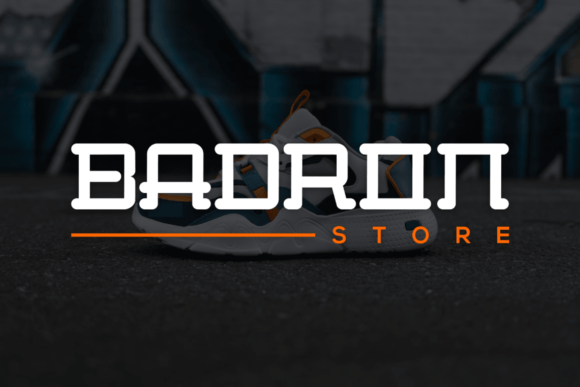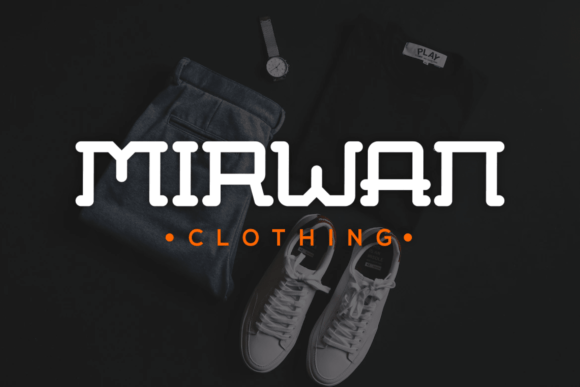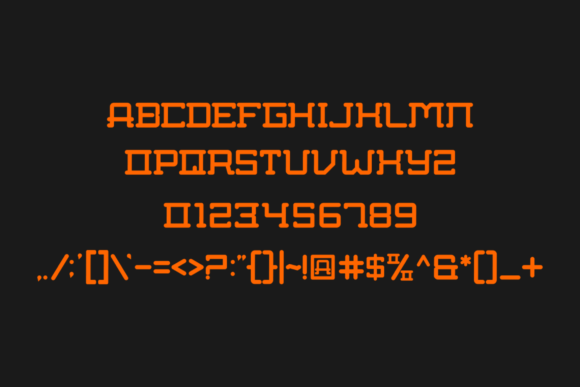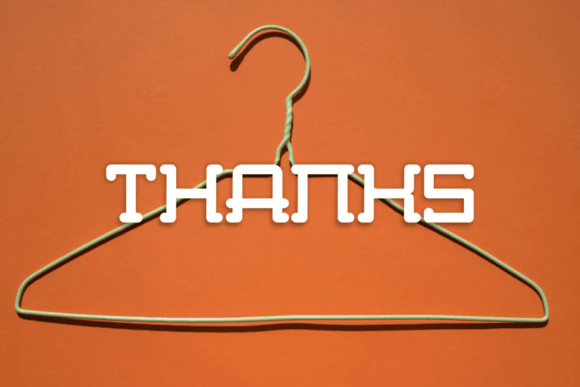
Dampar Font: Elevate Your Designs with a Cool and Modern Display Font
Are you tired of using the same old fonts in your designs? Look no further than Dampar Font, a cool and modern display font that’s sure to take your creative projects to the next level. Masterfully designed to become a true favorite among designers and crafters, Dampar Font has the potential to bring each of your creative ideas to the highest level.
What Makes Dampar Font So Special?
Dampar Font is a stunning display font that’s perfect for a wide range of design projects, from branding and advertising to packaging and digital media. Its unique and modern design makes it stand out from the crowd, while its clean and elegant lines ensure that it remains highly legible, even at large sizes.
One of the key features that sets Dampar Font apart is its versatility. Whether you’re looking to create a bold and eye-catching headline or a more subtle and sophisticated text element, Dampar Font has the flexibility to adapt to any design style or aesthetic.
The Design Process Behind Dampar Font
Dampar Font was designed with the goal of creating a font that would be both visually striking and highly functional. The design process involved a careful consideration of typographic principles, as well as a deep understanding of the needs of modern designers and crafters.
The result is a font that’s not only beautiful, but also highly practical. With its wide range of applications and ease of use, Dampar Font is the perfect choice for designers and crafters who want to take their projects to the next level.
Key Features of Dampar Font
So, what are the key features that make Dampar Font so special? Here are just a few of the highlights:
- Cool and modern design: Dampar Font has a unique and stylish design that’s perfect for creating eye-catching headlines and text elements.
- Highly legible: Despite its bold and modern design, Dampar Font remains highly legible, even at large sizes.
- Versatile: Dampar Font can be used for a wide range of design projects, from branding and advertising to packaging and digital media.
How to Use Dampar Font in Your Designs
So, how can you use Dampar Font in your designs? Here are a few ideas to get you started:
- Branding and advertising: Use Dampar Font to create bold and eye-catching headlines and text elements that will help your brand stand out.
- Packaging design: Add a touch of elegance and sophistication to your packaging designs with Dampar Font.
- Digital media: Use Dampar Font to create stunning text elements for your website, social media, or digital advertising campaigns.
In conclusion, Dampar Font is a cool and modern display font that’s perfect for designers and crafters who want to take their projects to the next level. With its unique and stylish design, high legibility, and versatility, Dampar Font is the perfect choice for a wide range of design projects.